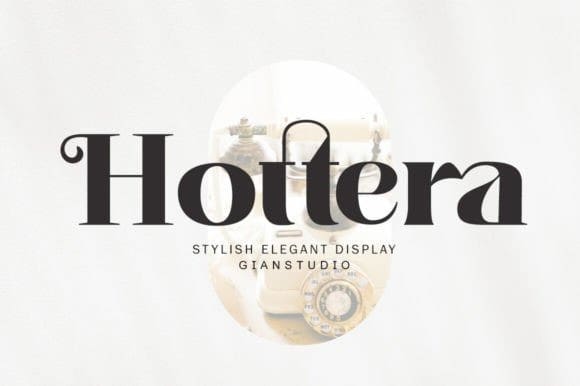
Hottera Font
Hottera Font, elegant serif with a creative atmosphere and perfect shape, inspired by today’s beautiful Display serifs. thick, balanced and varied, born for luxury and beauty.